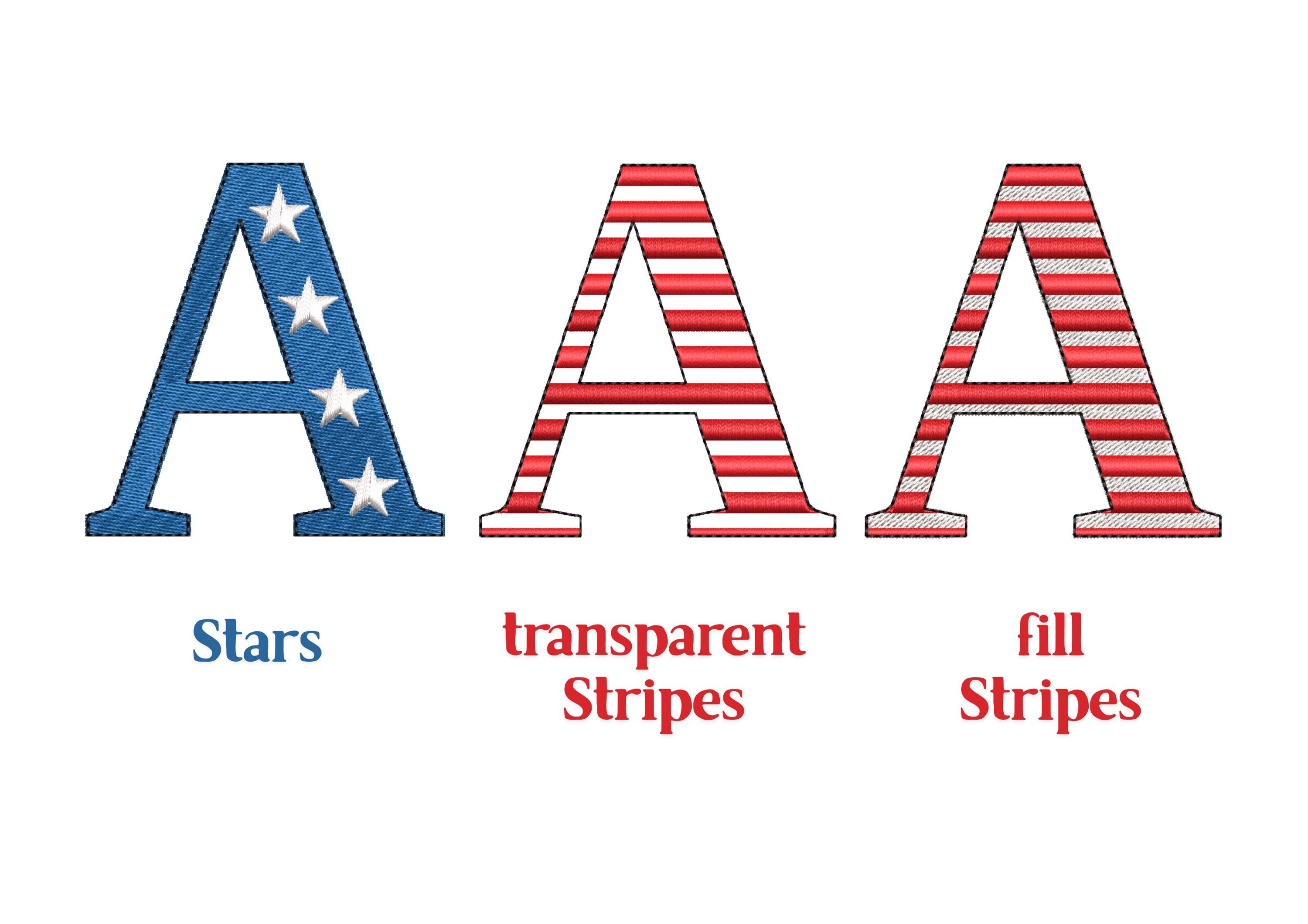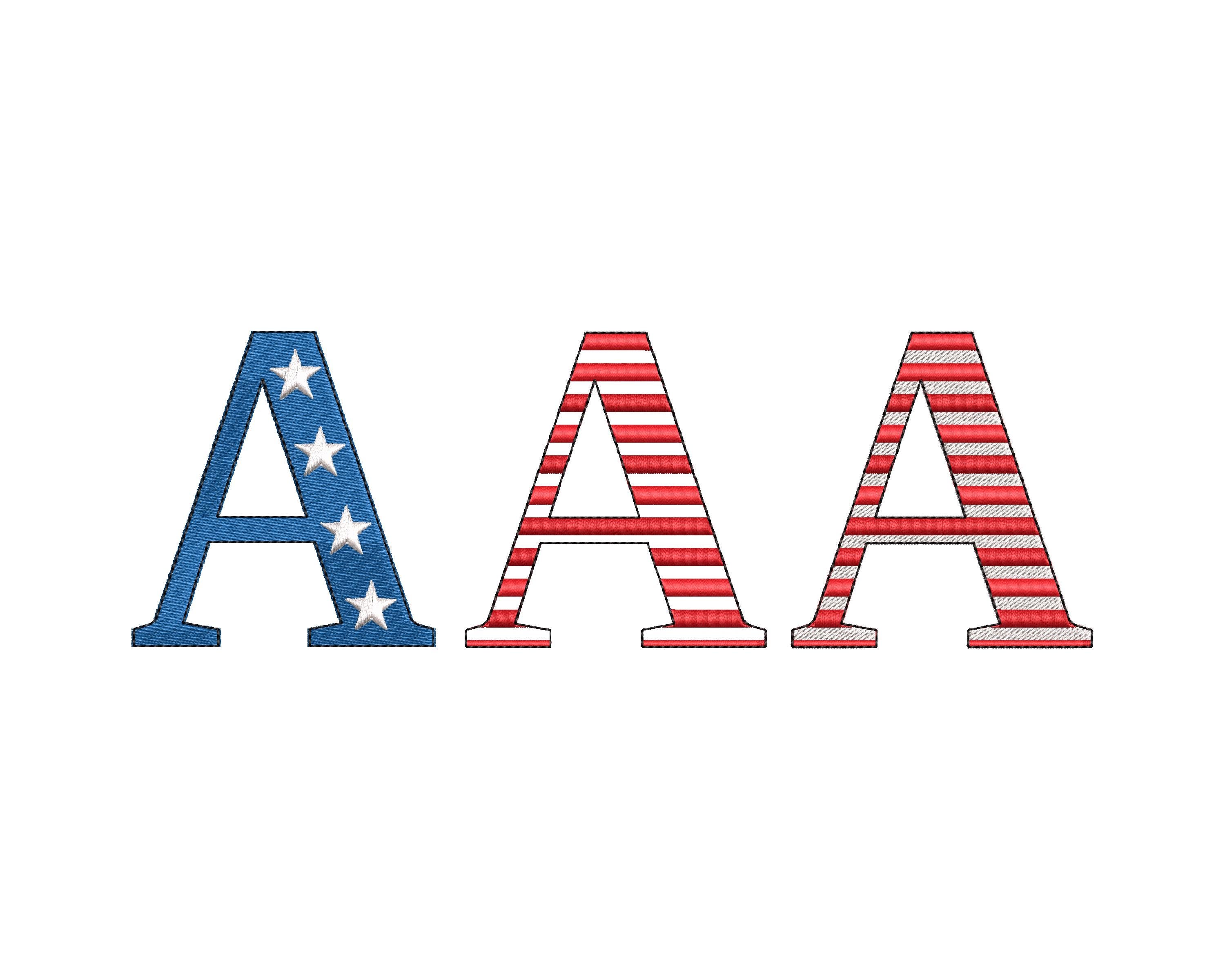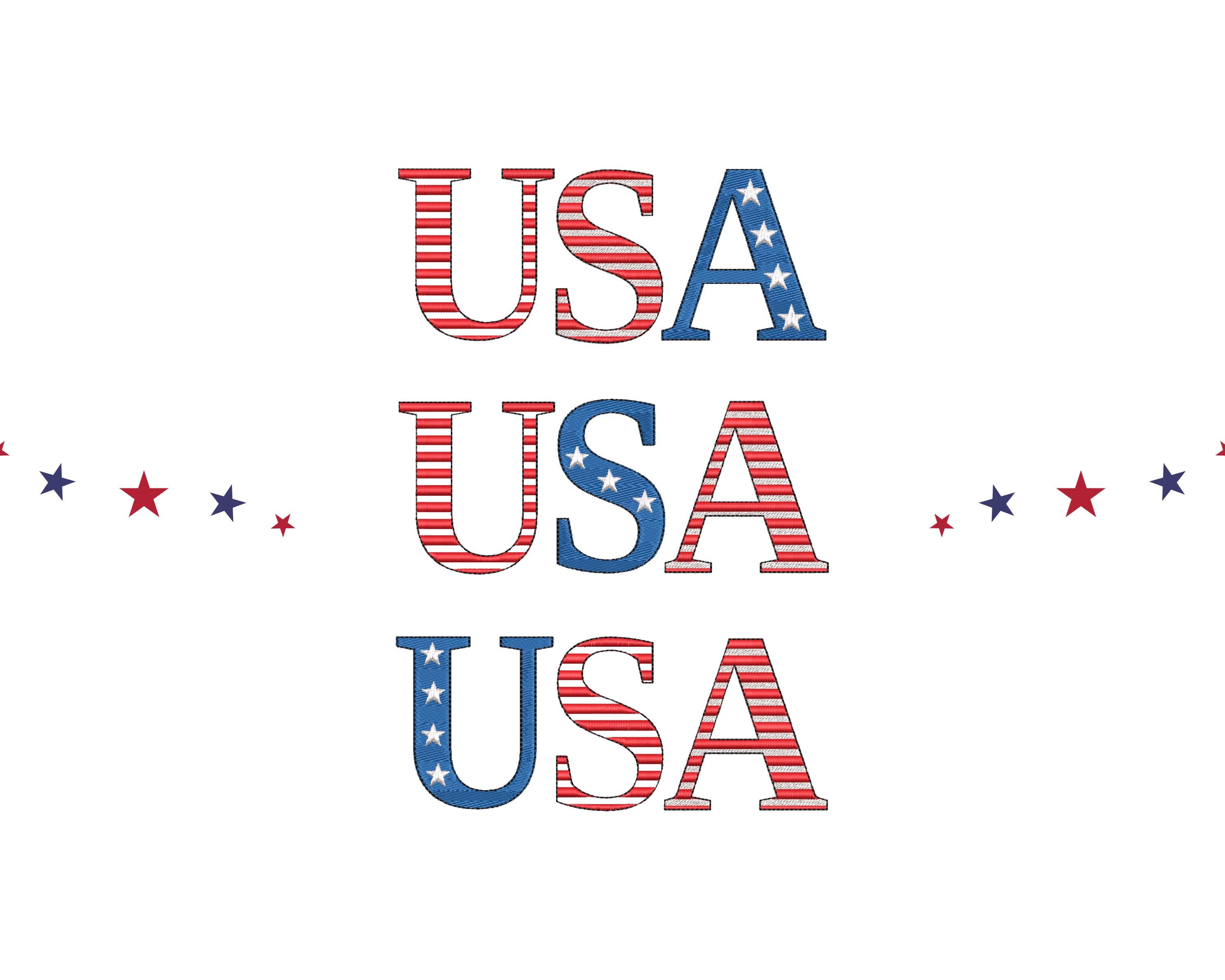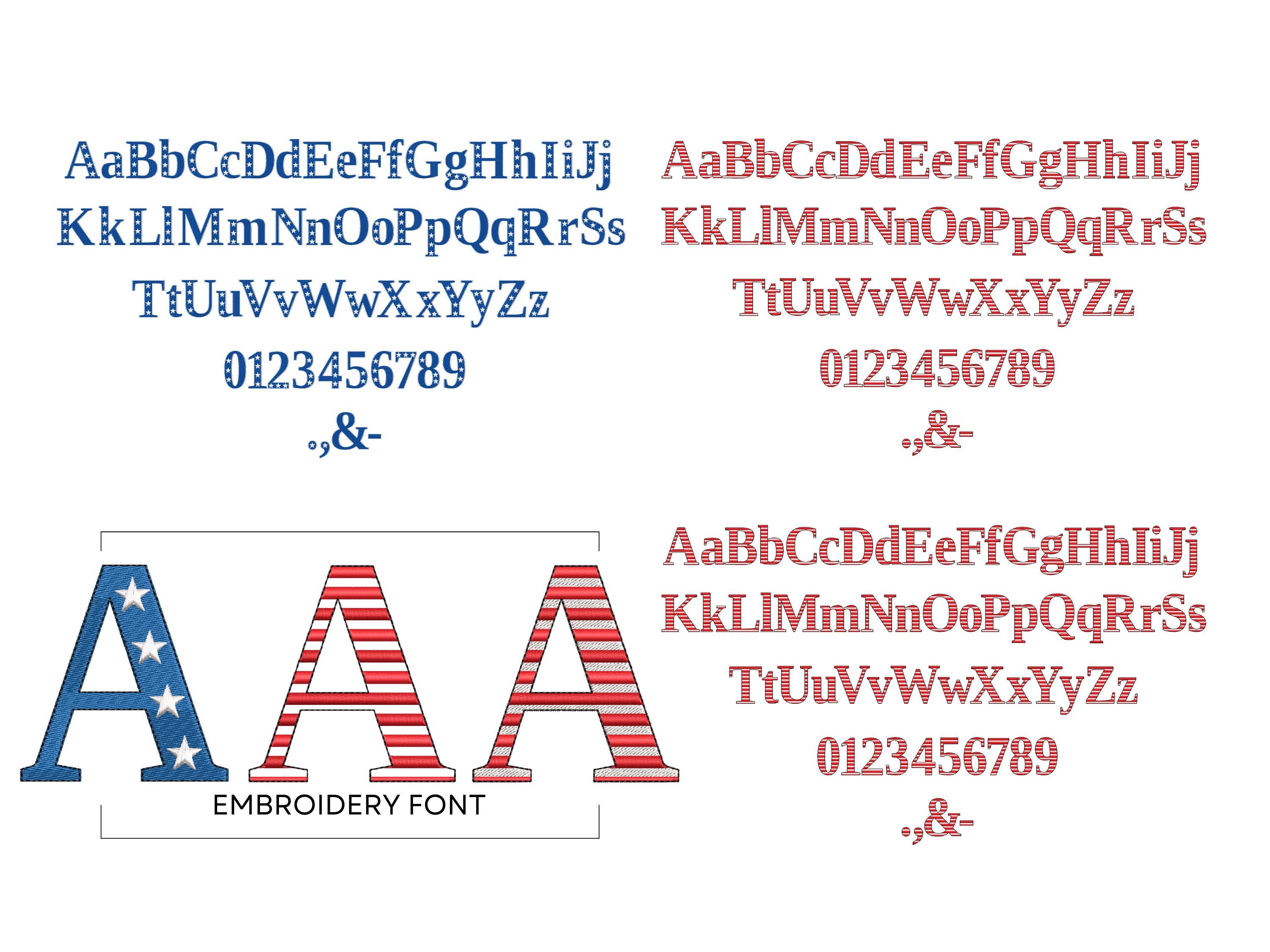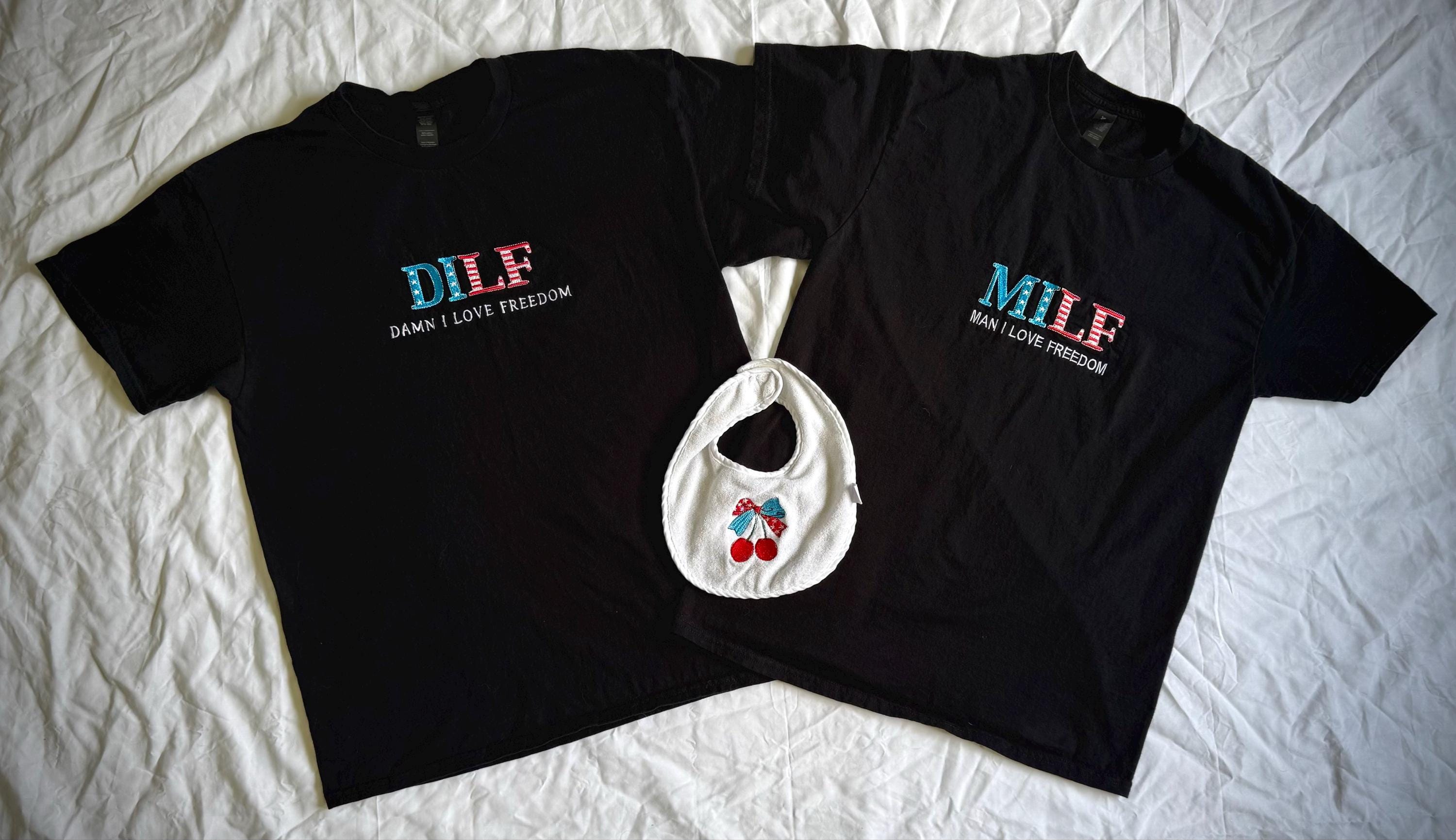
Included 3 fonts:
* font with stars - fill stitch
* font with stripes - fill stitch
* font with stripes - satin stitch red stripes, and white are transparent. The background fabric looks through. Stunning effect!
Each alphabet includes the entire alphabet uppercase and lowercase letters Aa-Zz, numbers 0-9, and punctuation.